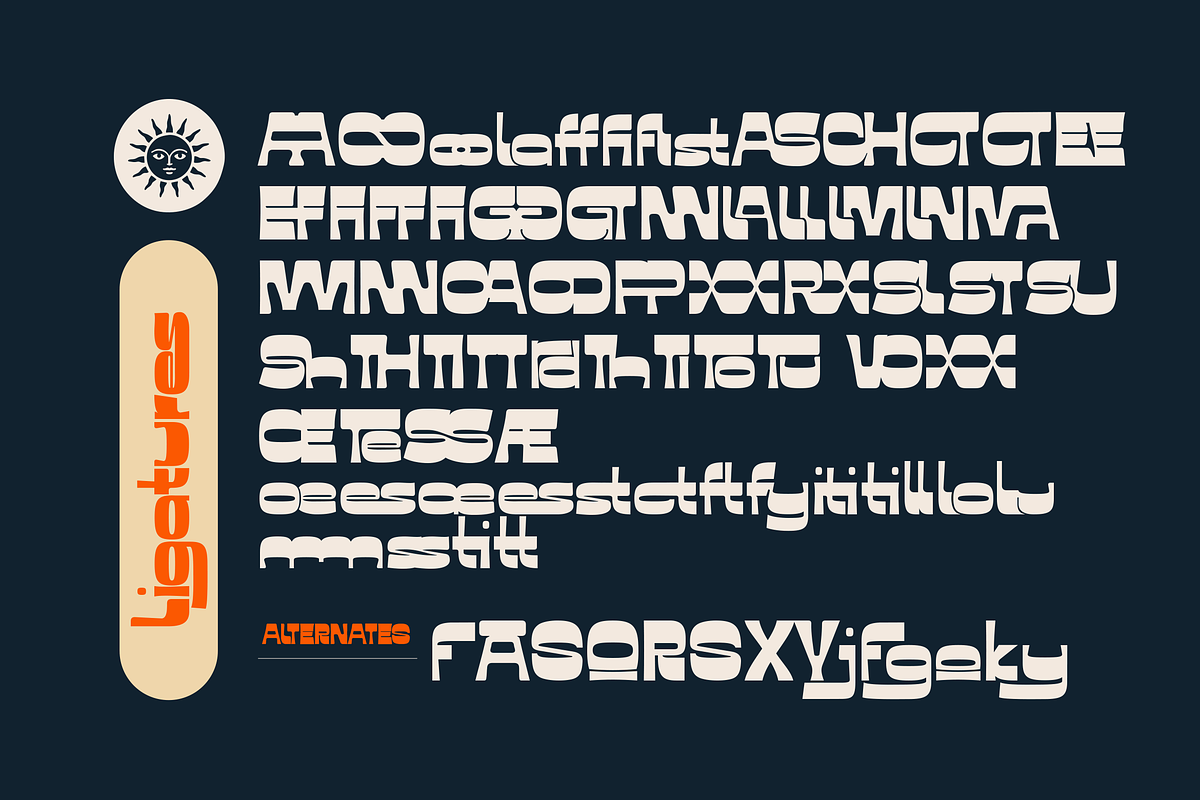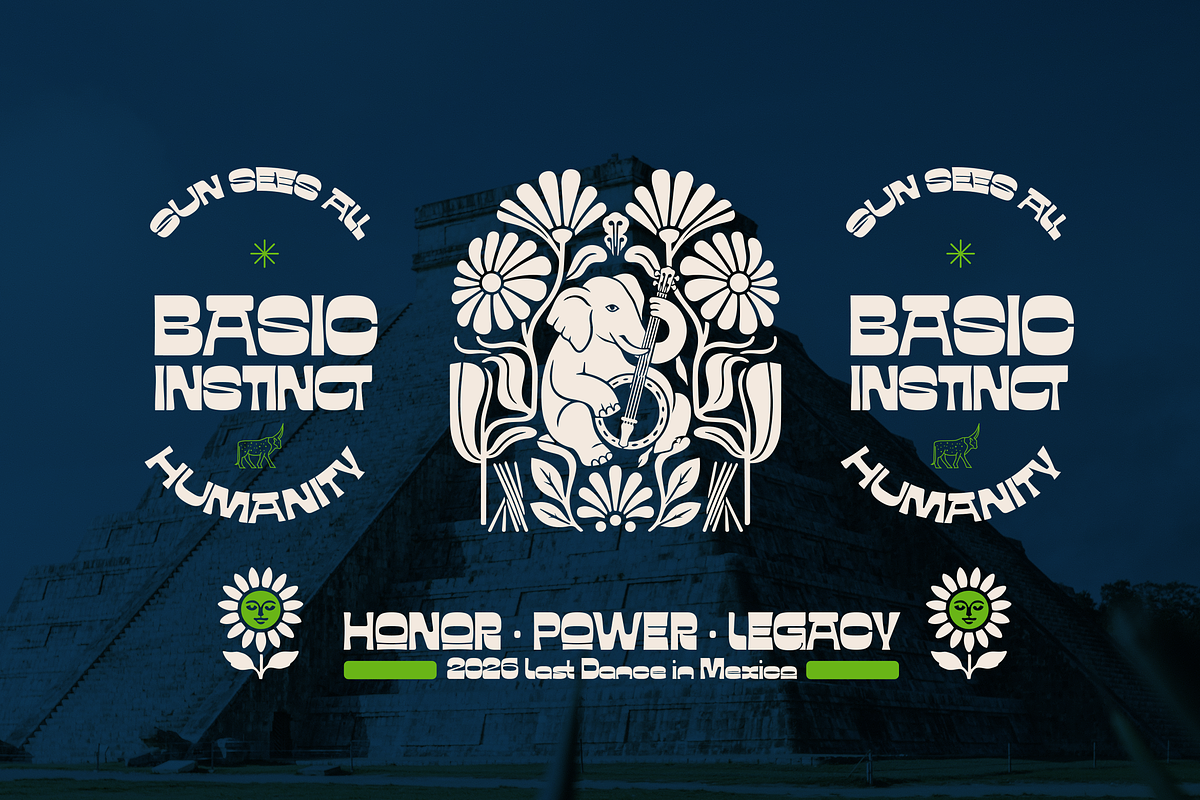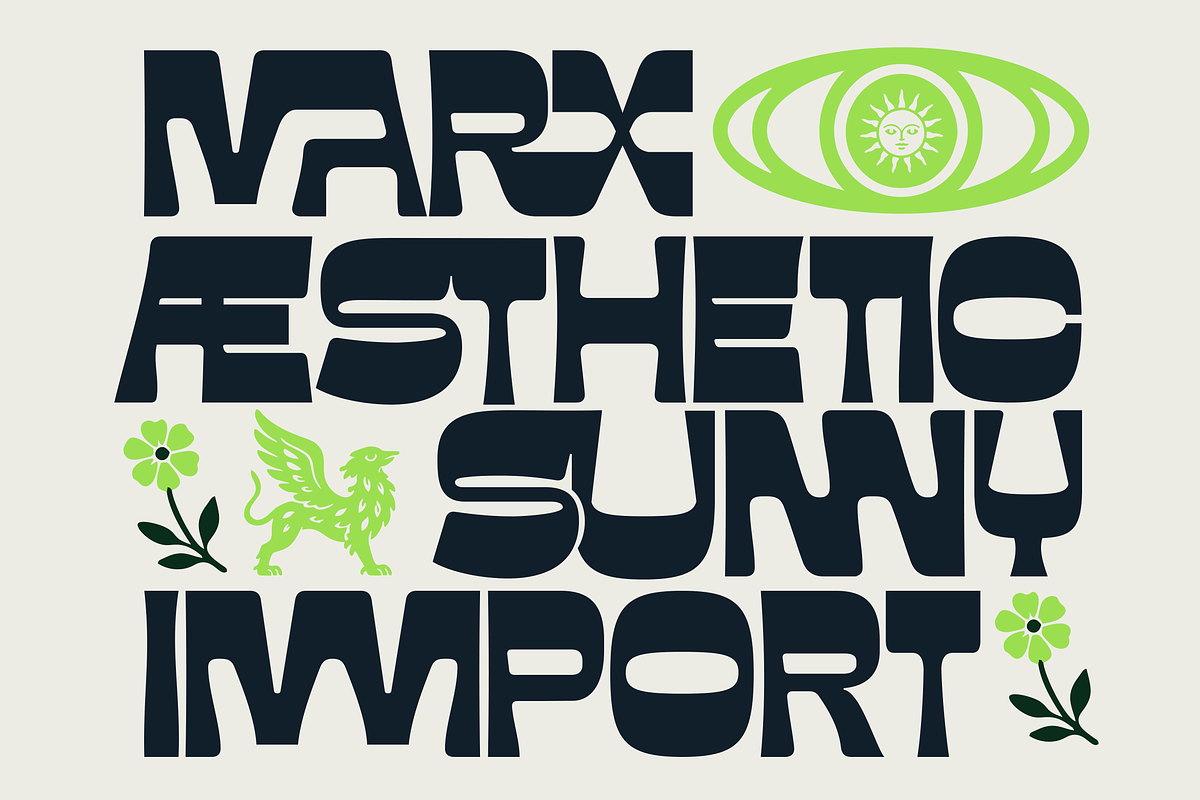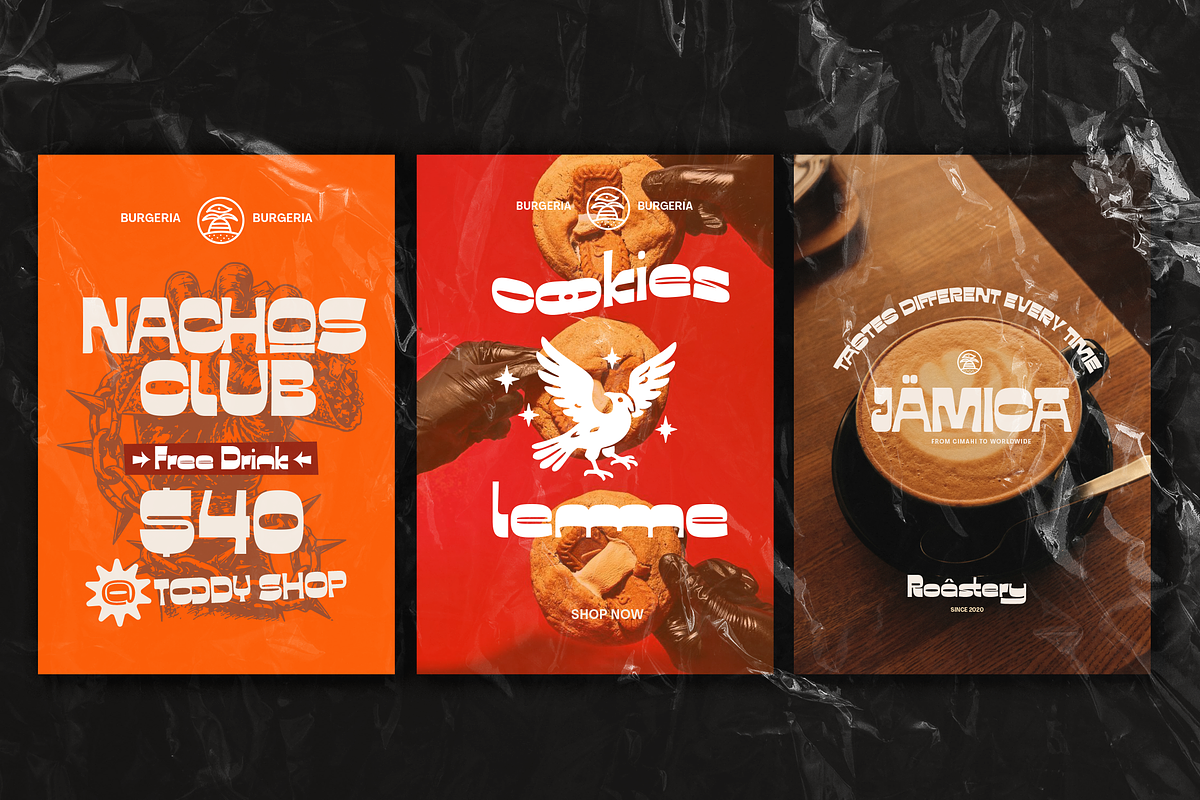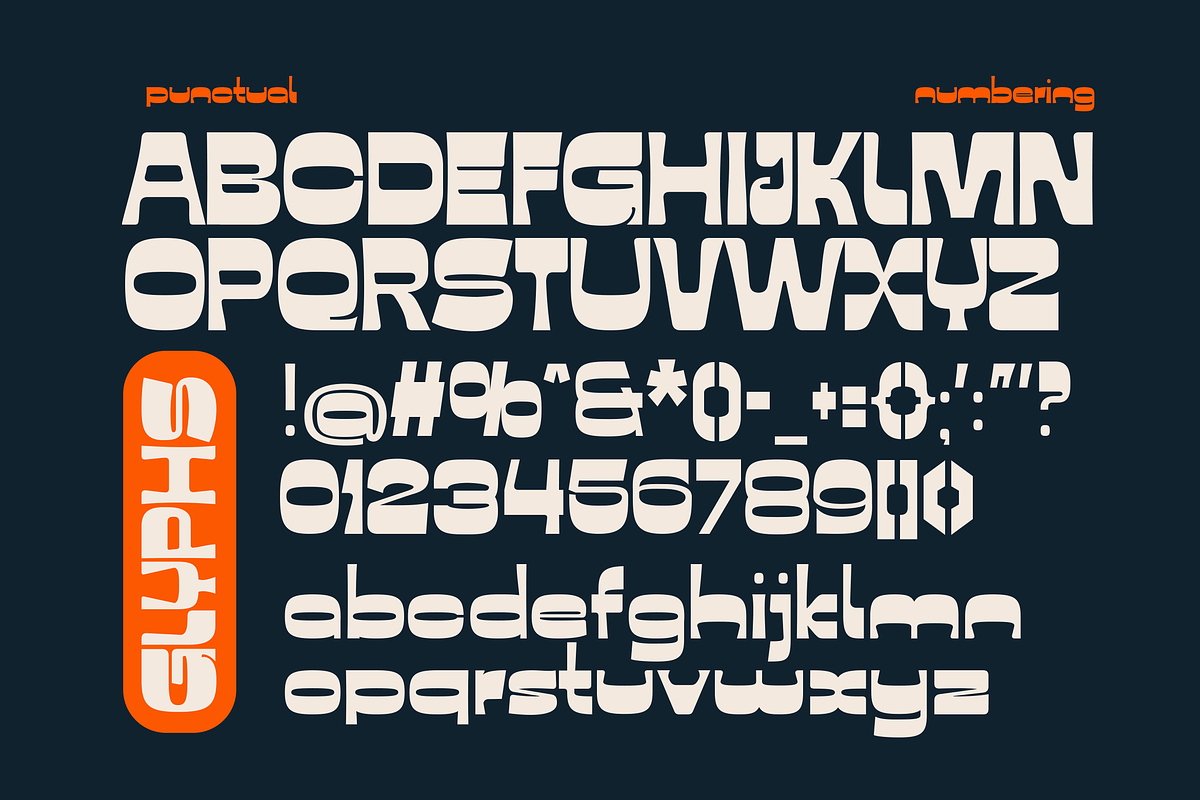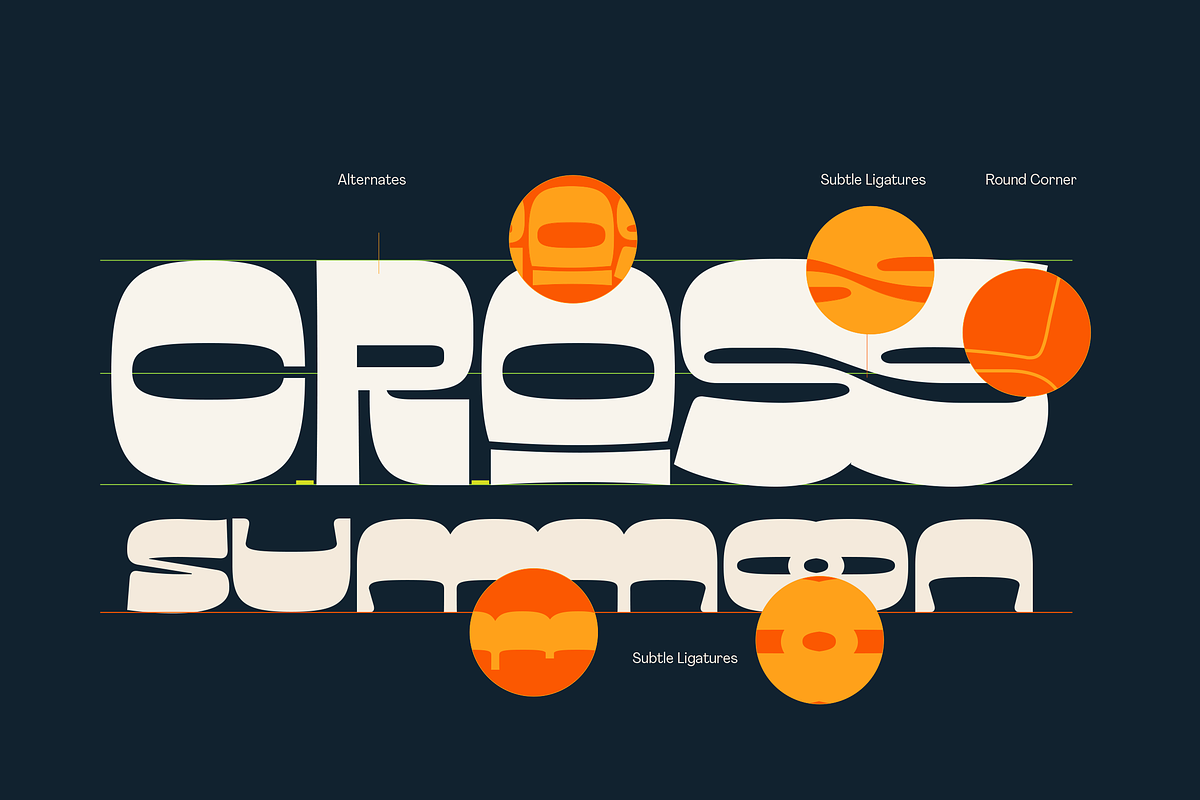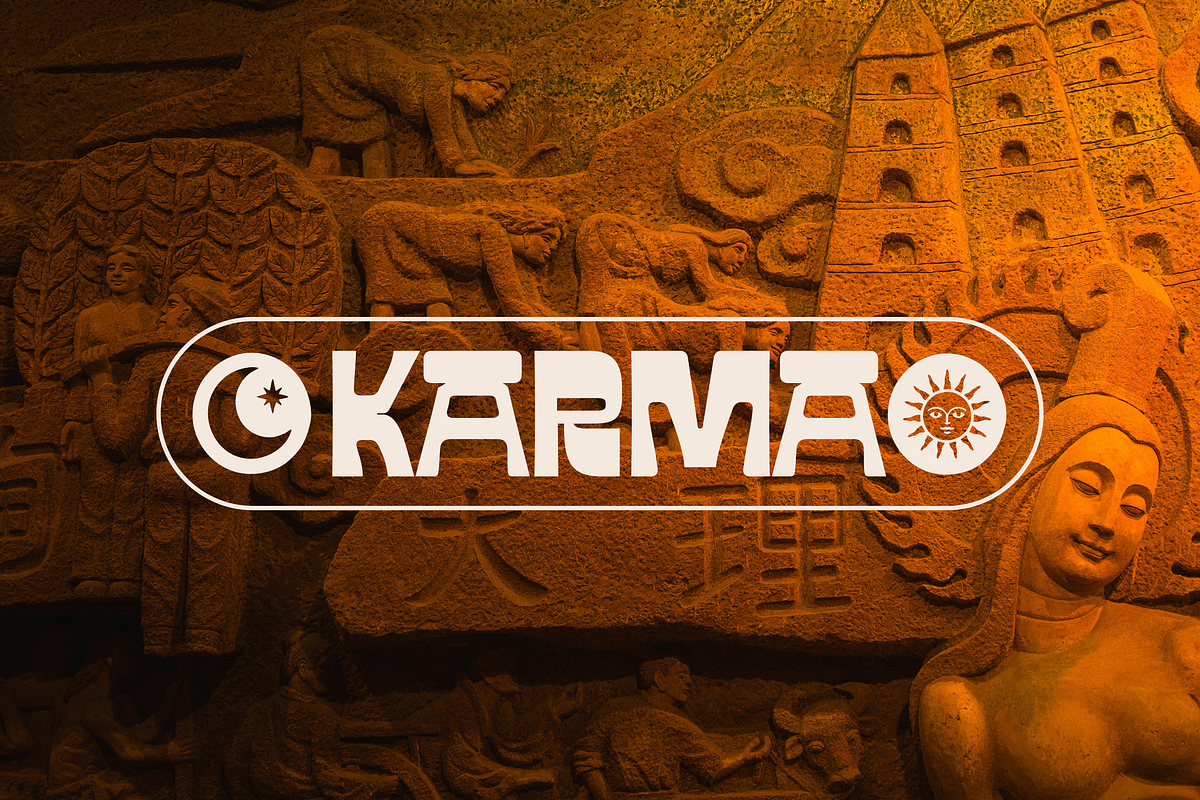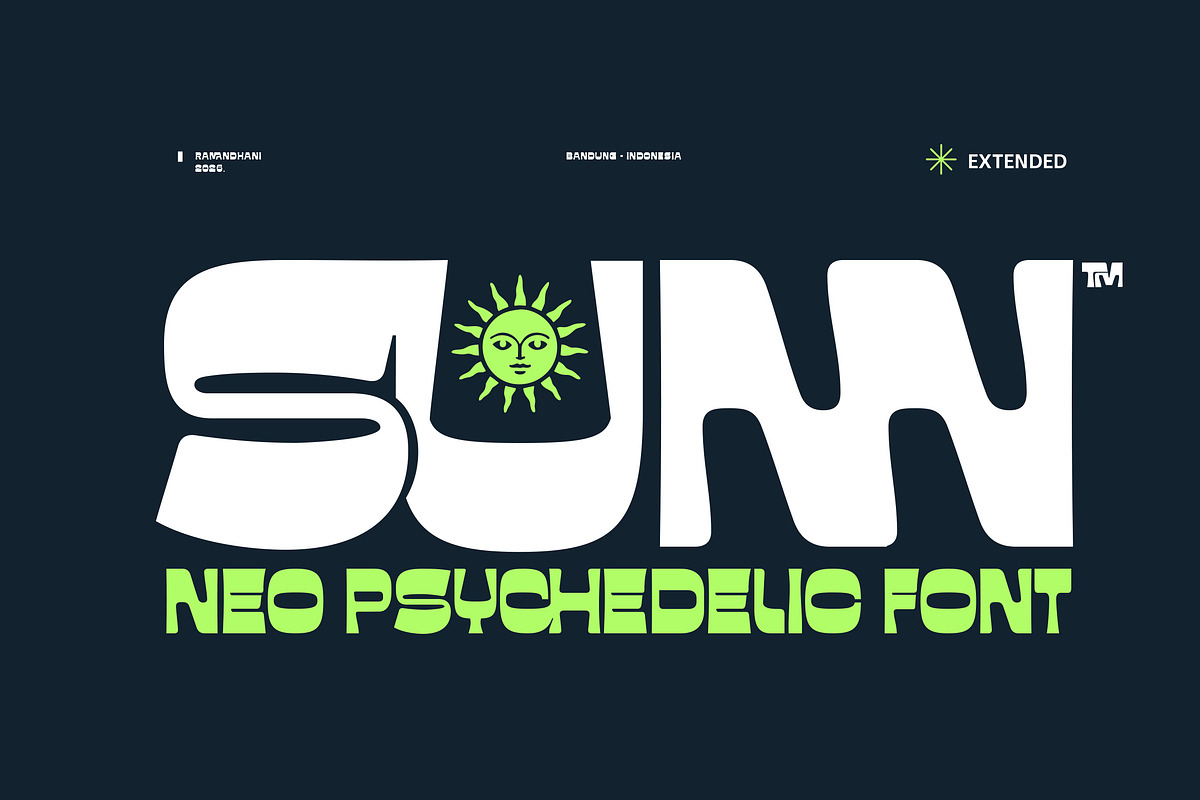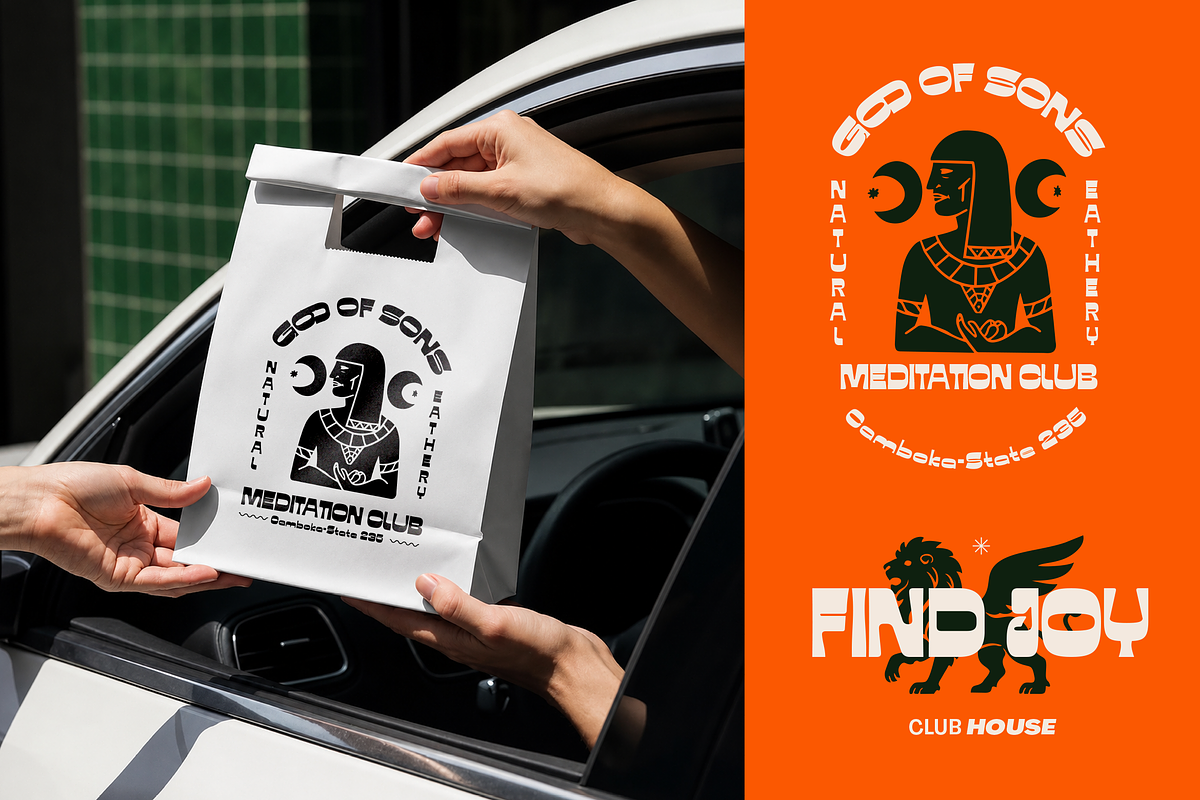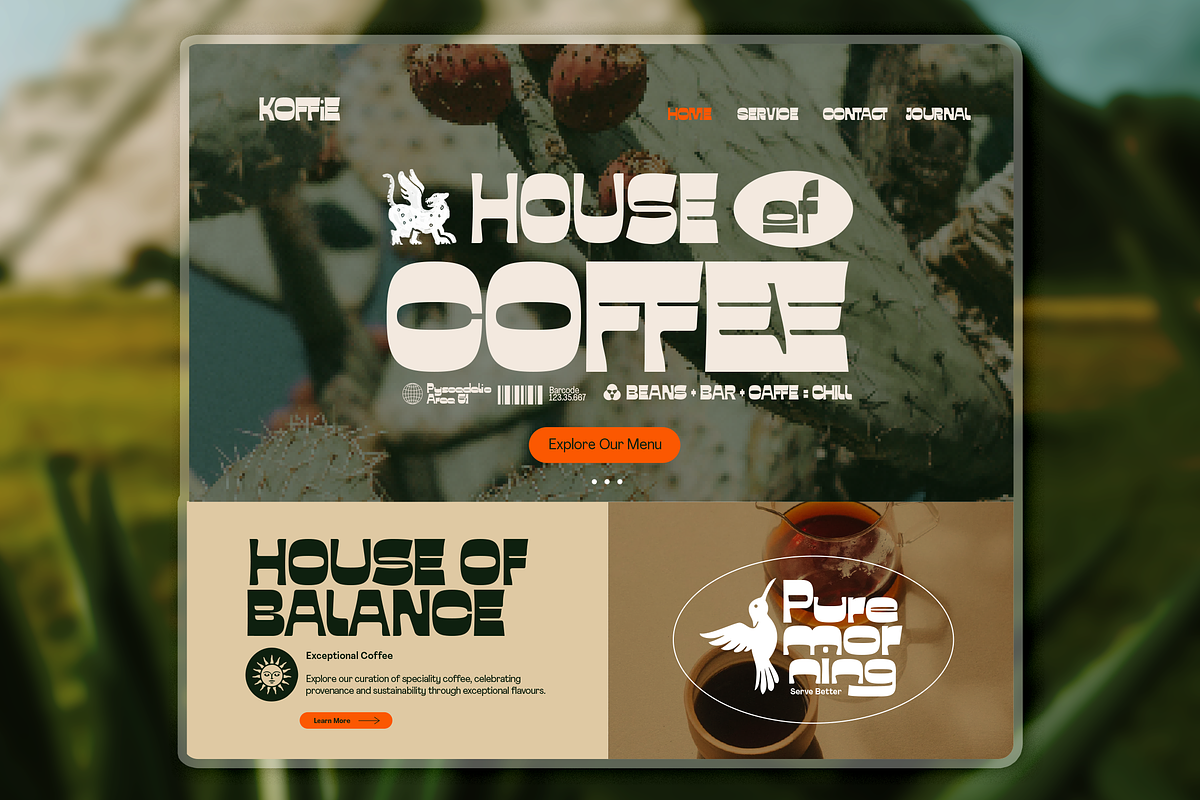
Fd- Sunn Neo Psychedelic Font
Sunn is a bold neo-psychedelic display font inspired by retro futurism, desert culture, folk symbolism, and experimental typography. Designed with strong geometric forms, unique rounded corners, and highly recognizable silhouettes, Sunn delivers an expressive visual identity perfect for modern branding and statement-making designs.
This typeface combines the energy of 70s psychedelic aesthetics with contemporary experimental design, resulting in a versatile font that feels nostalgic, futuristic, and distinctly original.
Whether you're creating coffee branding, apparel graphics, music posters, album covers, packaging, editorial layouts, social media campaigns, or creative identities, Sunn provides a striking visual presence that instantly captures attention.
\* Lowercase
\* Uppercase
\* Ligatures
\* Stylistic Alternates
\* Numbering & Punctual